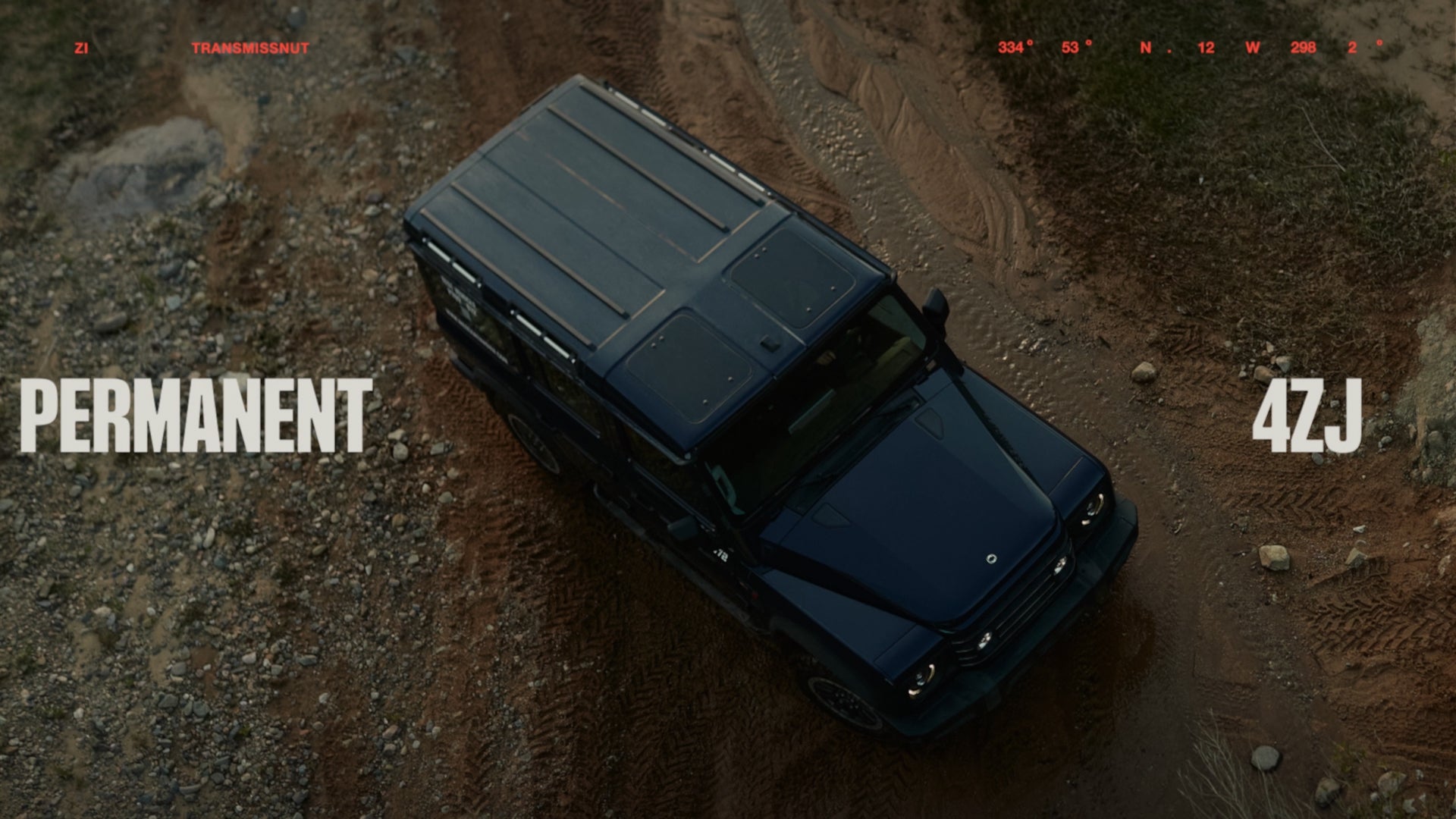
The automotive industry relies on typography to communicate performance, safety, and brand identity across a wide range of touchpoints. From instrument clusters and infotainment systems to badging, marketing campaigns, and owner manuals, type plays a key role in how information is delivered and perceived.
Clarity and legibility are critical, especially in motion. Typography must perform in real-time environments where drivers need to process information quickly and without distraction. This demands highly readable letterforms, clear hierarchies, and careful spacing across digital and physical interfaces. At the same time, typography contributes to the emotional identity of a vehicle, whether it conveys speed, luxury, ruggedness, or innovation.
Automotive brands often develop distinct typographic systems that extend from the vehicle itself to the broader brand ecosystem. From bold, performance-driven sans serifs to refined, premium styles, type helps create a cohesive experience that connects engineering with storytelling.
Pangram Pangram’s typefaces are built to meet the demands of the automotive industry, combining technical precision with strong visual character. Whether you're designing for in-vehicle interfaces, global campaigns, or brand systems, our fonts provide the clarity, versatility, and identity needed to drive a consistent and compelling experience.